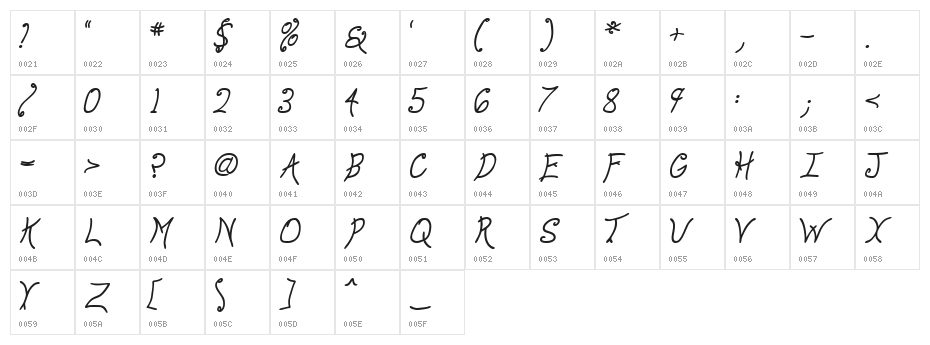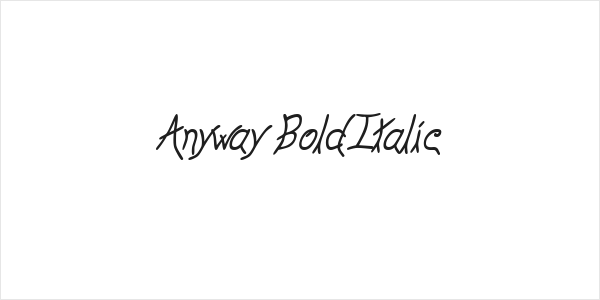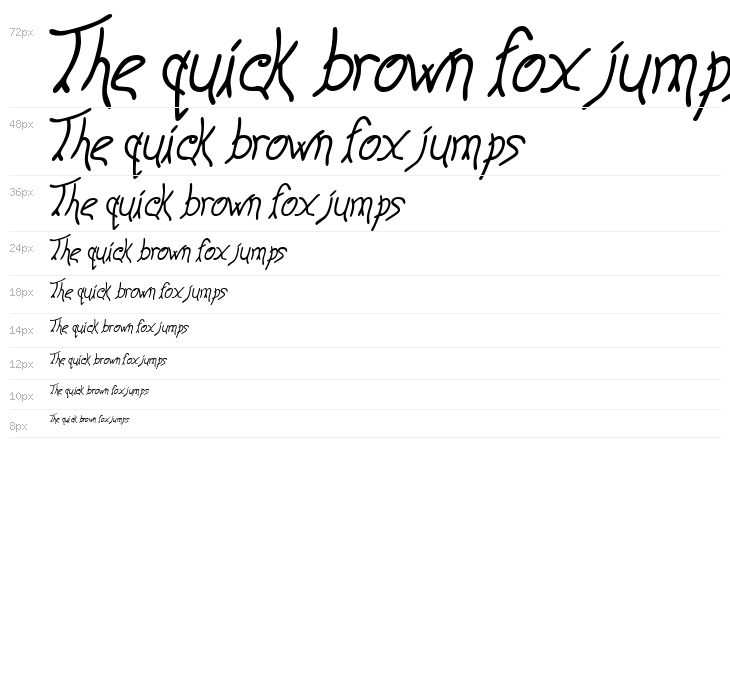
Anyway BoldItalic Font
Anyway BoldItalic Description
This font features a dynamic and expressive style with a handwritten appearance. The characters are slightly slanted, giving it an italicized look, while maintaining a bold presence. The strokes are fluid and organic, with varying thickness that adds a sense of movement and energy. The uppercase letters are tall and slightly narrow, while the lowercase letters have a more casual and flowing form. The numerals are consistent with the overall style, maintaining the same bold and italic characteristics. Special characters are creatively designed, complementing the font's lively aesthetic.